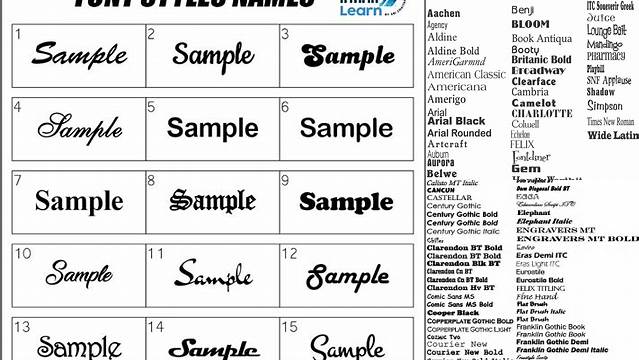
Fonts Explained: Types And Names
Welcome, typography enthusiasts! Ever wondered about the fascinating world of fonts? Fonts, the silent storytellers of design, are much more than just letters on a screen or page. They're the invisible architects of communication, shaping how we perceive information and influencing our emotions. This comprehensive guide dives deep into the types of fonts and their names, providing you with the knowledge to navigate the world of typography with confidence. We'll explore the different font families, their characteristics, and how to choose the perfect font for your project. So, buckle up, guys, because we're about to embark on a journey into the world of fonts!
Understanding Font Families: The Building Blocks of Typography
Before we dive into the specifics of types of fonts and their names, let's get familiar with the fundamental font families. Think of these families as the DNA of typography – they determine the basic characteristics and styles of fonts. There are four main font families, each with its unique personality and purpose. First up, we have serif fonts, which are characterized by the small decorative strokes called serifs at the end of each letter. They exude a classic, elegant, and traditional feel, making them ideal for body text in books, newspapers, and magazines. Then comes sans-serif fonts, which, as the name suggests, lack serifs. These fonts are clean, modern, and often used for headings, websites, and digital interfaces. Next, we have monospace fonts, where each character occupies the same horizontal space. These are commonly used for code, typewriters, and technical documents. Finally, script fonts mimic handwriting, adding a touch of personality and flair. They range from elegant and formal to playful and casual. Knowing these font families will help you understand the basic structure of different font styles. It also provides a good framework to pick the right one based on your needs.
Serif Fonts: The Timeless Elegance of Decorative Strokes
Let's delve deeper into serif fonts, the classic choice for conveying a sense of tradition and sophistication. These fonts, with their elegant serifs, are often seen in books, newspapers, and magazines, where readability and a sense of trust are paramount. Notable serif fonts include Times New Roman, a ubiquitous choice known for its legibility and familiarity. Another popular option is Garamond, with its refined and elegant appearance, often used in high-end publications. Baskerville offers a slightly bolder and more modern take on the serif style. When choosing a serif font, consider the context. For example, if you are working on a book, a serif font would be the best choice. The serifs lead the eye across the lines of text, making the reading experience smoother and less strenuous. For a more modern look, you could also consider fonts like Georgia, designed specifically for on-screen readability. When selecting a serif font, you should also remember the nature of the project. Is it a project that needs to have a traditional tone or more of a contemporary feel? Serif fonts are versatile. They work well in a variety of formats, from print to digital. They are excellent for branding and can bring a sense of sophistication to the overall project. Be careful when using them in digital formats. The serifs can sometimes appear messy, so always consider a size that ensures good readability.
Subheading: Exploring the Subtleties of Serif Font Styles
The world of serif fonts is more diverse than you might think, and each sub-style adds unique characteristics to its overall design. Old Style serifs are characterized by their low contrast between thick and thin strokes, and their diagonal stress, which makes them look elegant and traditional. Transitional serifs offer a more balanced look, with a higher contrast and a more vertical stress. Finally, Modern serifs feature high contrast and a very vertical stress, giving them a bold and stylish appearance. These are often used for headlines and titles. By understanding these nuances, you can choose the serif font that best matches the message you want to convey. This is a world of visual language. The right choice can make all the difference in communicating the brand's message. You must carefully analyze the font's characteristics and match it with the project needs. This will ensure that you deliver the right message to the intended audience. So next time you're choosing a serif font, take a moment to understand its style. Consider the contrast, stress, and serifs to get a deeper appreciation for the art of typography. The more you explore, the more you appreciate the beauty and versatility of the serif font.
Subheading: Times New Roman: The Ubiquitous Serif and Its Uses
Times New Roman, a serif font, stands as a familiar face in the typography world. Its widespread use makes it the go-to choice for many documents, from official reports to school papers. Its popularity stems from its legibility, a crucial factor, especially in extended text. Despite being a classic font, it can sometimes appear dated, so consider your audience and the project's purpose when choosing it. However, its neutrality and clear structure make it a reliable choice for various professional uses. Remember that the use of the font goes far beyond just text. The size, spacing, and color of the font must complement the message to maintain readability. Its versatility allows it to be used in a variety of mediums, from print to digital, providing a consistent visual language. However, be mindful of the context. In some cases, a more distinctive font might better suit the project's goals. Despite its pervasiveness, Times New Roman continues to be a workhorse of the typography world.
Sans-Serif Fonts: Modern and Clean Aesthetics
Now, let's turn our attention to sans-serif fonts, characterized by the absence of serifs. These fonts have a clean, modern look and are ideal for digital interfaces, headings, and anywhere where readability is crucial, especially on screens. Helvetica is a quintessential sans-serif font, known for its neutrality and versatility. It's often used in corporate branding and signage. Arial is another popular choice, often seen as a default option due to its availability. Roboto is a modern sans-serif designed by Google, and it offers excellent readability on various devices. These are ideal for various projects. Sans-serif fonts, however, aren't just about functionality; they also reflect a specific aesthetic, often associated with modernity, minimalism, and efficiency. They bring a sense of order and make the reader focused on the content. With their versatility and readability, they work great on all types of projects. Next time you're looking for a versatile font, keep these points in mind, and you'll find the right font.
Subheading: Decoding Popular Sans-Serif Font Choices
When diving into sans-serif fonts, you will find numerous options available, and understanding the distinct characteristics of each is important. Helvetica, for example, is a workhorse font, known for its neutrality and clean lines, perfect for almost any application. Arial, often seen as a close alternative, provides a similar aesthetic, but subtle differences can impact its overall feel. Roboto, a font created by Google, is made to look good on screens. It's well-suited for user interfaces and digital content. When choosing between these options, remember that it's important to consider the project's specific needs, brand identity, and audience. For digital spaces, readability is key, and the font should perform well across different devices and screen sizes. If you want a modern and minimalist design, a clean sans-serif font is a good choice. Understanding these nuances will help you make an informed decision for all your typographic needs.
Subheading: Exploring the Versatility of Helvetica
Helvetica is a sans-serif font that has earned its place as a cornerstone of modern typography due to its neutrality and versatility. First created in Switzerland in 1957, this typeface has gone on to become a staple in various applications, including branding, wayfinding, and user interfaces. Its clean lines and simple forms make it highly readable, even at smaller sizes. The font's versatility allows it to blend seamlessly into diverse contexts, lending a sense of professionalism and modernity to any design. However, given its ubiquity, using Helvetica also means running the risk of blending into the background. So, when you are considering using this font, make sure to carefully consider its context and how it aligns with the overall message. This font can be an excellent choice if you need a versatile and classic font that will never go out of style. Its timeless appeal has made it a favorite among designers worldwide. Whether used in print or digital formats, Helvetica consistently provides a clean, efficient aesthetic, making it an excellent choice for any project.
Monospace Fonts: The Uniformity of Equal Spacing
Next, we'll explore monospace fonts, where each character occupies the same horizontal space. These fonts are essential for code, typewriters, and any situation where consistent spacing is needed. Courier New is a classic monospace font, evoking the feel of a typewriter. Consolas is a modern choice, designed specifically for code readability on screens. These fonts are incredibly useful for those who work with code or require text alignment. The consistent width of each character makes it easier to compare and align text, making it easy to debug and edit the code. While monospace fonts may not be the first choice for body text, they are crucial in specific contexts.
Subheading: The Practicality of Monospace Fonts in Code and Beyond
Monospace fonts are fundamental in coding and other technical applications. Every character in these fonts occupies the same amount of horizontal space, which is crucial for precise alignment, making it very easy to read and edit code. Courier New is a classic example, reminiscent of a typewriter, providing a sense of history. Consolas, a modern choice, excels in on-screen readability, making it ideal for coding environments. Besides coding, monospace fonts have practical applications in data tables, scripts, and even artistic expressions. Because of their distinctive visual style, they can also be used creatively. Whenever you need to ensure precise alignment and readability, a monospace font is the right choice. They are versatile tools. Whether you're a coder, a data analyst, or a creative professional, they are very useful in various applications.
Subheading: Courier New and Consolas: Comparing Two Popular Monospace Fonts
When it comes to monospace fonts, Courier New and Consolas are among the most popular choices. Courier New, with its typewriter-inspired look, exudes a sense of classic charm. Its familiar appearance is great for a historical project, giving it a vintage feel. Consolas, on the other hand, is a modern creation designed specifically for screen readability. It offers a cleaner aesthetic and is well-suited for coding environments. If you're looking for a typeface that feels familiar and traditional, Courier New may be the right choice. If your priority is clarity and legibility on the screen, especially in code, Consolas is probably better. Both serve their unique purposes. When deciding between the two, consider the context of use and the desired visual style. However, they both share the core characteristic of monospace typography. So make sure you know what you're going for and you should be good to go.
Script Fonts: The Art of Handwritten Aesthetics
Finally, let's explore script fonts, mimicking handwriting and adding a personal touch to designs. They come in many styles, from elegant and formal to playful and casual. Brush Script MT offers a classic handwritten look. Pacifico is a more casual and friendly script. These fonts are perfect for headlines, invitations, and other projects that require a touch of personality. Keep in mind, however, that script fonts are best used sparingly, as excessive use can hinder readability. It's a great choice when you want to add a personal touch to your project. However, it is recommended to use them as accent pieces rather than the whole project.
Subheading: Unleashing the Charm of Script Font Styles
Script fonts bring a personal, artistic touch to any design, mimicking the fluidity of handwriting. There are different categories, like formal scripts, which are elegant and sophisticated, perfect for invitations or certificates. Then, there are casual scripts that offer a more relaxed, handwritten vibe, perfect for headlines or logos. Choosing the right script font depends on the purpose and audience. The key is to find a balance between readability and visual appeal. It's crucial to use script fonts strategically. Overuse can make the content look cluttered. Use them for highlights, headings, or quotes for a touch of elegance. Proper spacing, size, and color are also important. With the right approach, script fonts can transform a project into a work of art.
Subheading: Brush Script MT and Pacifico: Two Distinctive Script Font Examples
Brush Script MT and Pacifico provide distinct examples of script fonts, each with its unique flair. Brush Script MT has a classic handwritten look, making it very elegant and sophisticated. It's perfect for formal invitations or adding a touch of sophistication to a project. Pacifico has a more casual and friendly appearance, often associated with a relaxed, modern aesthetic. This font is perfect for websites, logos, and projects that demand a more playful, accessible feel. While choosing between these fonts, take into account the purpose and the tone of the project. Brush Script MT is a great choice for something more formal. Pacifico will be a better option if you need something more playful. By considering the characteristics of these fonts, you can create a perfect design.
Beyond the Basics: Exploring Font Characteristics
Beyond the four main font families, several other factors come into play when selecting the right font for a project. Weight refers to the thickness of the character strokes. Styles include regular, italic, bold, and condensed variations. Readability, legibility, and the intended audience must all be taken into account. This allows you to make the best choice based on the needs of the project. Experimenting with different fonts can improve your design skills. This is an ongoing process that helps you better understand the art of typography.
Subheading: Understanding Font Weight and Styles
Font weight and style are key to making the right typographic choices. Font weight refers to the thickness of a character's strokes, ranging from light to extra bold. Different weights can significantly affect the message's impact. The style refers to variations like regular, italic, and bold, which are used for emphasis or to create visual hierarchy. A good understanding of weight and style will enhance your design process. Experiment with various combinations to see what works best for your message. Think about how weight and style can affect the reader's attention. Understanding these characteristics is crucial for creating engaging designs.
Subheading: Readability vs. Legibility: Key Considerations in Font Selection
When choosing a font, understanding the difference between readability and legibility is essential. Readability refers to how easily extended text can be read, while legibility is about recognizing individual characters. Factors such as font size, line spacing, and the overall design influence the readability. Legibility depends on the design of the font itself, including the shape of the letters and the use of space. Consider the audience, the format, and the purpose of the project. Choosing a font that ensures both readability and legibility will ensure that your message is clearly understood and effectively delivered. Paying attention to these factors will help you create effective designs.
Subheading: Matching Fonts to Your Target Audience
Selecting a font that aligns with your target audience's preferences and expectations is crucial for design. The style of the font creates an immediate impression, so it is important to choose one that resonates with your audience. For example, a formal font may be appropriate for an academic audience. In contrast, a more playful font may suit a younger, creative audience. Understanding your target audience will enable you to connect more meaningfully with your readers. Considering demographic factors, cultural background, and interests can guide your decision. When choosing fonts, take the time to understand your audience. Doing so ensures that your message is received well and creates a lasting connection with your audience.
Font Pairing: Creating Harmonious Typography
Effective font pairing involves selecting fonts that complement each other, creating visual harmony and enhancing readability. Consider the contrast between fonts. You can pair a bold heading font with a more subtle body text font. Think about the different font families and their compatibility. Do not overcrowd your design with too many fonts. It is recommended to stick to two or three fonts maximum. Font pairing is an art, so experiment with different combinations to see what works best. With practice, you'll learn how to create balanced and visually appealing designs that capture the reader's attention. Remember, a good design is more than just good looks, and the right font pairing will ensure that you are conveying the right message to the audience.
Subheading: Strategies for Effective Font Pairing
Effective font pairing is crucial for creating visually appealing and readable designs. A fundamental strategy is to select fonts that complement each other. Contrast is a very important element, allowing the fonts to stand out. However, too much contrast can overwhelm a design, so finding a good balance is important. Consider pairing a strong headline font with a more subtle body text font for a balanced look. Another useful strategy is to experiment with different font families. Sans-serif fonts can pair well with serif fonts, creating a nice contrast. A good rule of thumb is to choose no more than two or three fonts. Also, make sure the chosen fonts match the project's overall style and purpose. With experimentation and practice, you will be able to master the art of font pairing.
Subheading: Combining Serif and Sans-Serif Fonts for Impact
Pairing serif and sans-serif fonts can create striking visual effects. This combination allows designers to balance tradition with modernity. Serif fonts, often associated with classic elegance, can be used for headlines or titles. They provide a sense of history. Sans-serif fonts are great for body text and headlines, giving a clean, modern look. When combining these two types, ensure that there is enough contrast to maintain a clear visual separation. Consider the overall aesthetic of your project when choosing the fonts. Experimenting with different combinations will help you find the right blend of tradition and modernity. With careful pairing, you can create designs that are both readable and visually appealing. This provides a unique aesthetic that can captivate readers and create a lasting impression.
Subheading: Avoiding Common Font Pairing Mistakes
While font pairing can enhance your designs, certain mistakes can undermine their effectiveness. A common error is using too many fonts, which can confuse the reader and disrupt the visual hierarchy. To prevent this, limit your font selection to two or three choices. Another mistake is pairing fonts that clash visually. Ensure that the fonts you choose complement each other. Avoid combining fonts that are too similar, as they can create a lack of contrast. Always test your font combinations to ensure readability. Poor readability can lead to a disconnect with the audience. Choosing the wrong font is not just about aesthetics; it is about effective communication. By understanding these common pitfalls, you can improve your design. This will help you make better font choices and ensure your message gets across to the audience.
Choosing the Right Font: A Practical Guide
Selecting the right font is an art and science. Begin by identifying the purpose of your project and the intended audience. Next, consider the format, whether it's print or digital, as this will affect readability. Experiment with different font families and styles. The right font will convey the message. Do not forget to check if the font is legible. Choose fonts that are readable. Consider the context and purpose of your project. Good design is about making sure that the message resonates with the audience. The right font can make your project more appealing and engaging, increasing its impact and effectiveness. Understanding the fundamentals of the design will help you make better font choices.
Subheading: Identifying the Purpose and Audience of Your Project
Before choosing a font, it's essential to identify the project's purpose and intended audience. The objective of the project dictates the type of font that should be used. Is it a formal report, an invitation, or a marketing campaign? The font choice should align with the purpose of the project. Understanding the target audience is also very important. Consider their age, interests, and cultural background. A font that appeals to a younger demographic may not resonate with an older audience. For example, if the project is designed for children, a playful font may be the best choice. If the audience is business professionals, a classic font can bring a sense of professionalism. By identifying the purpose and audience, you can narrow down your choices and choose the font that will be most effective.
Subheading: Font Selection for Print vs. Digital Mediums
Selecting the right font depends on the medium, whether it's print or digital. Factors like screen resolution, viewing distance, and printing methods all affect the readability of the font. Print projects must consider the physical limitations of the printing process. Serif fonts can work very well in print because they guide the eye across the page. Digital environments like websites and apps often have different needs. Readability is key when using digital mediums. Sans-serif fonts are best for digital use because they are clear and legible on screen. Consider the size and the spacing of the fonts. Also, ensure that the font performs well across all devices and screen sizes. Understanding these distinctions ensures your content is both accessible and visually appealing.
Subheading: Evaluating Font Legibility and Readability
Font legibility and readability are key in choosing the right fonts. Legibility refers to how easily individual characters can be distinguished, while readability describes how easily the text can be read in long form. Always test different fonts to ensure they are both legible and readable. Also, consider the font size, the line spacing, and the overall design. It is very important to select a font with good legibility, and then a readable font. Good readability depends on the font, the context, and the intended audience. You want your content to be easily understood, so choose fonts that will provide a good reading experience. When evaluating, focus on readability and legibility, and select fonts that will best serve the needs of your project.
Typography Best Practices: Optimizing Your Font Choices
Beyond choosing the right font, optimizing your typography is key to creating a great design. Start by using proper kerning, tracking, and leading to improve readability. Experiment with font sizes. Ensure that the font sizes work well across all the projects. Use a visual hierarchy to guide the reader's eye. Finally, balance the use of color, spacing, and other design elements to create a well-composed and effective design. With these best practices, you can use the right font to create something that resonates with the audience. The goal is to create designs that are both visually appealing and communicate the intended message effectively. Good typography will ensure the success of your design.
Subheading: Mastering Kerning, Tracking, and Leading
Mastering kerning, tracking, and leading is essential for achieving great typography. Kerning is the space between two individual characters. If they are not correctly spaced, the text can look cramped or uneven. Tracking is the spacing applied to a group of characters or a whole word. Finally, leading is the space between the lines of text. Adjusting these factors can significantly impact the readability and the overall aesthetic. Adjust the kerning to create balanced text. Set the tracking to create a uniform look. Adjust the leading to create a comfortable reading experience. With these factors in mind, you can create designs that are both visually appealing and effective. Mastering kerning, tracking, and leading is crucial for achieving a great typographic design.
Subheading: Creating a Visual Hierarchy with Typography
Creating a visual hierarchy using typography is a very important element of design, helping readers navigate the content. Using different font sizes, weights, and styles can create a clear structure. The use of headlines is key, and they should be larger and bolder to draw attention. Subheadings should be slightly smaller and less bold, but still clearly distinct from body text. The importance of the content is the key when you create this visual hierarchy. Different font sizes and weights will emphasize the importance of information. You should use the visual hierarchy to guide the reader through the content in an intuitive manner. This approach will improve readability. This method can help create engaging and informative designs.
Subheading: Balancing Color, Spacing, and Other Design Elements
Balancing color, spacing, and other design elements is essential for effective typography. The color of the font should contrast with the background, making it easy to read. The spacing between words and lines needs to be carefully adjusted to create a comfortable reading experience. It is very important to avoid overcrowding the design. Keep the layout clean and spacious. The overall design should be consistent and harmonious. Use the spacing to break the content into logical sections. This will greatly enhance readability. Remember that good typography is not just about the fonts. It's about the harmony and balance of the whole design. By balancing these elements, you will be able to create a beautiful, impactful design that resonates with the audience.
Conclusion: Embrace the Power of Fonts!
We've covered a lot of ground, from the types of fonts and their names to best practices for creating beautiful and effective designs. As you continue your typography journey, experiment with different fonts, and always consider the context and purpose of your project. The right font can transform your message. Embrace the power of fonts, and let your typography tell a story. Happy designing, everyone!